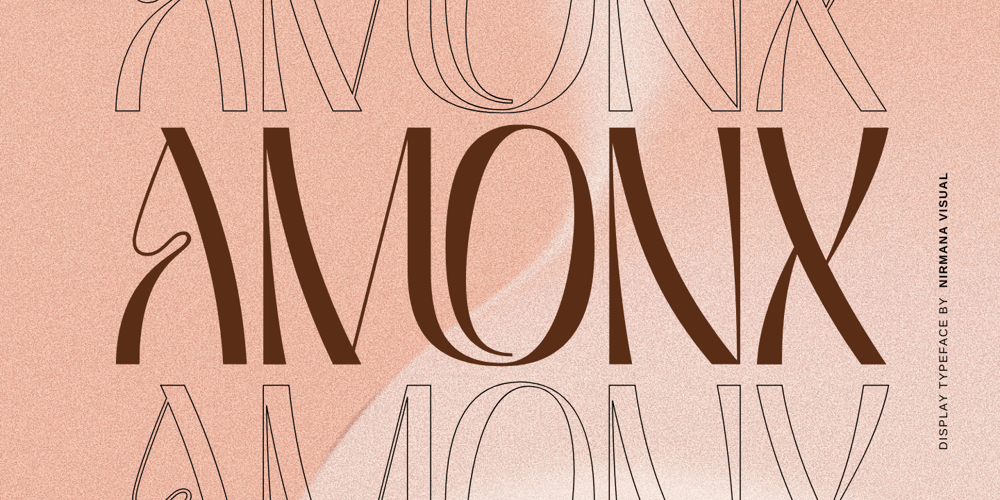
Amonx Font Family was designed by Sigit Dwipa and published by Nirmana Visual. Amonx contains 1 styles and family package options. Amonx, contemporary of Sans Serif Display font,Amonx offers beautiful typographic harmony for a diversity of design projects, including logos & branding, social media posts, advertisements & product designs.